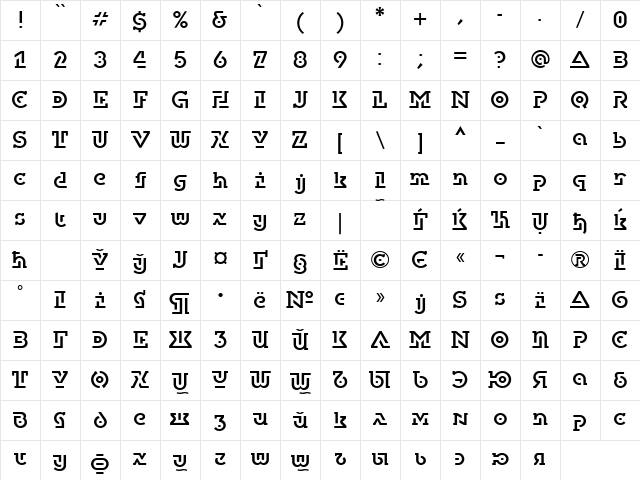
DublonBrusC Regular Free Font
DublonBrusC Regular
Foundry: ParaType, Inc
DublonBrusC Family
DublonBrusC Regular
Design Context for DublonBrusC
DublonBrusC is a composed and adaptable typeface that performs quietly and consistently across a wide range of design contexts.
Who designed the DublonBrusC Regular font?